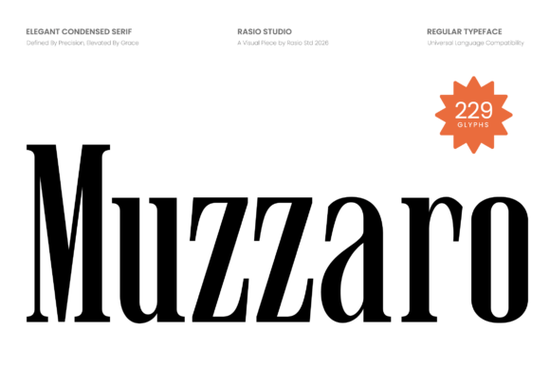
If you're looking for a refined serif font that works well for luxury branding, magazine headlines, or elegant packaging without feeling stiff or outdated you’ll likely appreciate Muzzaro Font. It’s a condensed serif typeface designed with intention: tall characters, high-contrast strokes, and subtle curves that give it presence without shouting. Unlike some display serifs that lose clarity at smaller sizes, Muzzaro holds up beautifully in both large headings and tighter layouts like cosmetic labels or boutique business cards.
When does Muzzaro work best?
Muzzaro shines where visual tone matters as much as readability think fashion lookbooks, premium wedding stationery, jewelry brand logos, or Instagram posts for a lifestyle brand. Its slim proportions help it fit cleanly into narrow spaces (like product tags or social media banners), while its sharp serifs and balanced letterforms keep it feeling intentional and polished. It’s not overly decorative, so it pairs well with clean layouts and minimal photography no competing elements needed.
Because it includes full uppercase, lowercase, numerals, and punctuation, you won’t hit a wall mid-project trying to format an address, price point, or tagline. That’s especially helpful if you’re designing for print-on-demand services where consistency across variations (e.g., mugs, tote bags, greeting cards) saves time and avoids last-minute font substitutions.
How does it compare to other elegant serifs?
Like Ironwood Western Font, Muzzaro carries classic serif structure but swaps rustic texture for precision. Where Ironwood leans into vintage charm, Muzzaro feels more current and editorial. If you’ve used Carnival Lights Font for festive or playful projects, you’ll notice Muzzaro takes a quieter, more restrained approach ideal when sophistication matters more than whimsy.
Vogane Font shares Muzzaro’s condensed proportions and editorial leanings, but Vogane has slightly softer terminals and less contrast between thick and thin strokes. Muzzaro’s sharper definition makes it stand out more in small-scale applications, like engraved details on perfume boxes or fine-print credits in a digital zine. And compared to Montegar Font, which balances modern geometry with traditional serif warmth, Muzzaro leans further into luxury refinement less “approachable classic,” more “quiet confidence.”
Real-world uses from designers and small businesses
A Portland-based candle maker used Muzzaro for their seasonal collection labels pairing it with soft matte paper and minimalist line art. The font’s height and spacing gave the names room to breathe, even on 2-inch-wide jars. A freelance designer building a rebrand for a Toronto-based jewelry studio chose Muzzaro for the logo lockup and website headers; clients responded positively to how “timeless but not old-fashioned” it felt.
For crafters selling printable invitations on Etsy, Muzzaro works well in layered PDF templates especially when combined with subtle gold foil accents or delicate floral borders. Its tall x-height means text remains legible even when scaled down for RSVP cards or envelope liners.
What to pair it with
Muzzaro doesn’t need heavy-handed companions. Try it with a neutral sans-serif like Inter or Lato for body text clean contrast without visual noise. For print layouts, consider pairing it with a light-weight serif like Muzzaro Font for headlines and a modest mono-spaced typeface for captions or technical notes. Avoid pairing it with other high-contrast serifs unless you’re intentionally layering hierarchy (e.g., Muzzaro for main title, Montegar for subheads).
One practical tip: test Muzzaro at actual output size before finalizing. Because it’s condensed, tight tracking can happen unintentionally especially in all-caps settings. A little extra letter-spacing (5–10 units in design software) often improves rhythm and legibility.
If you already have a project in mind whether it’s redesigning a boutique logo, preparing a beauty brand’s product suite, or setting up a new Canva template library Muzzaro Font is worth adding to your working toolkit. It’s not flashy, but it’s dependable and that’s what most thoughtful design work really needs.